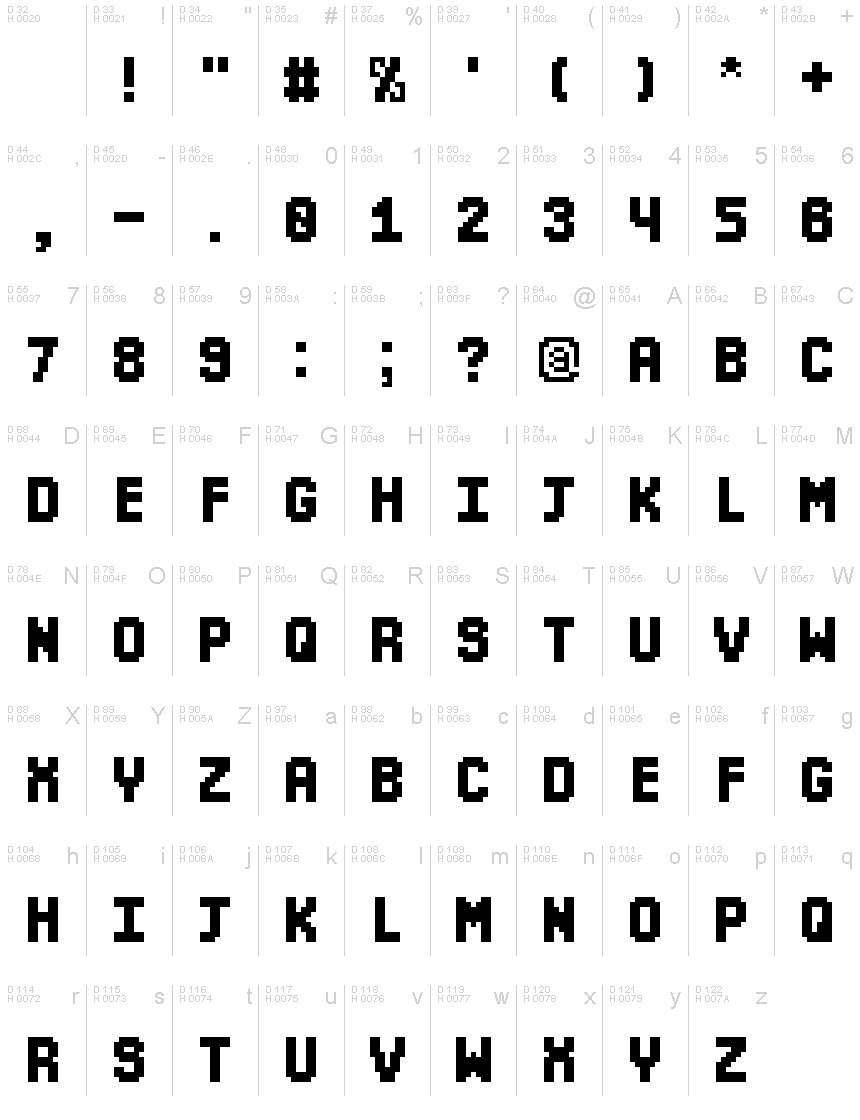
The Impostor Regular
"Among Us" inspired font based on its default stylized font. You can use it anywhere from video thumbnails to games.
"Among Us" inspired font.